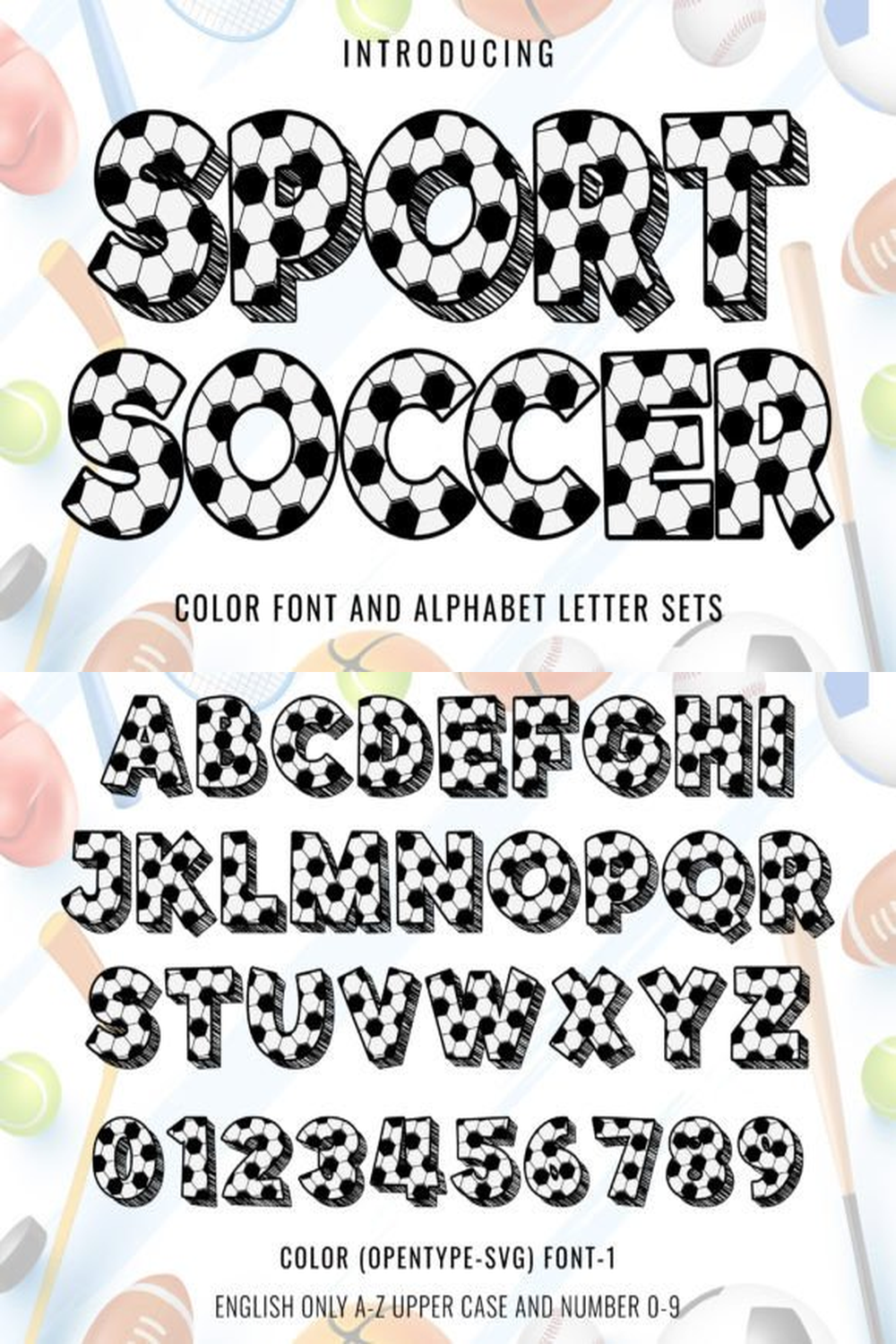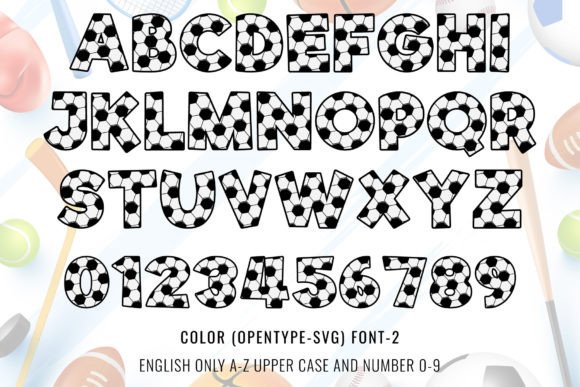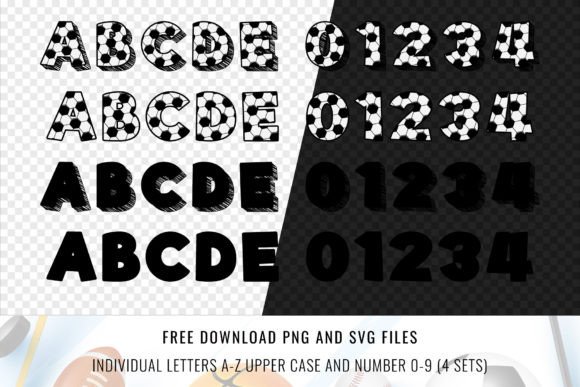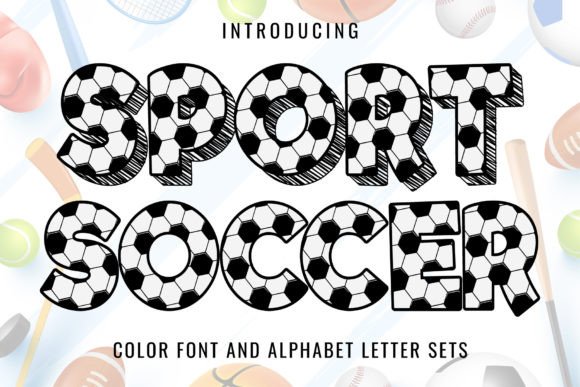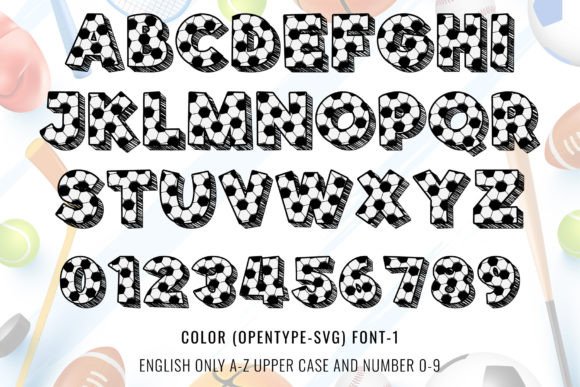
Sport Soccer Font
About the Sport Soccer Font
Elevate your designs with Sport Soccer Font, a font that combines sophistication with readability. Introducing “Sport Soccer Font” – a fun and playful color font. It’s the perfect font for sports-themed projects. It works great for creating cool designs that scream for attention. You can use these sports soccer large letter sets as letter posters for classroom, home, or office decoration. They are ideal teaching tools for letter-writing assignments or home learning. You can stick them on bulletin boards, doors, windows, walls, and corridors to attract students’ attention.
color version